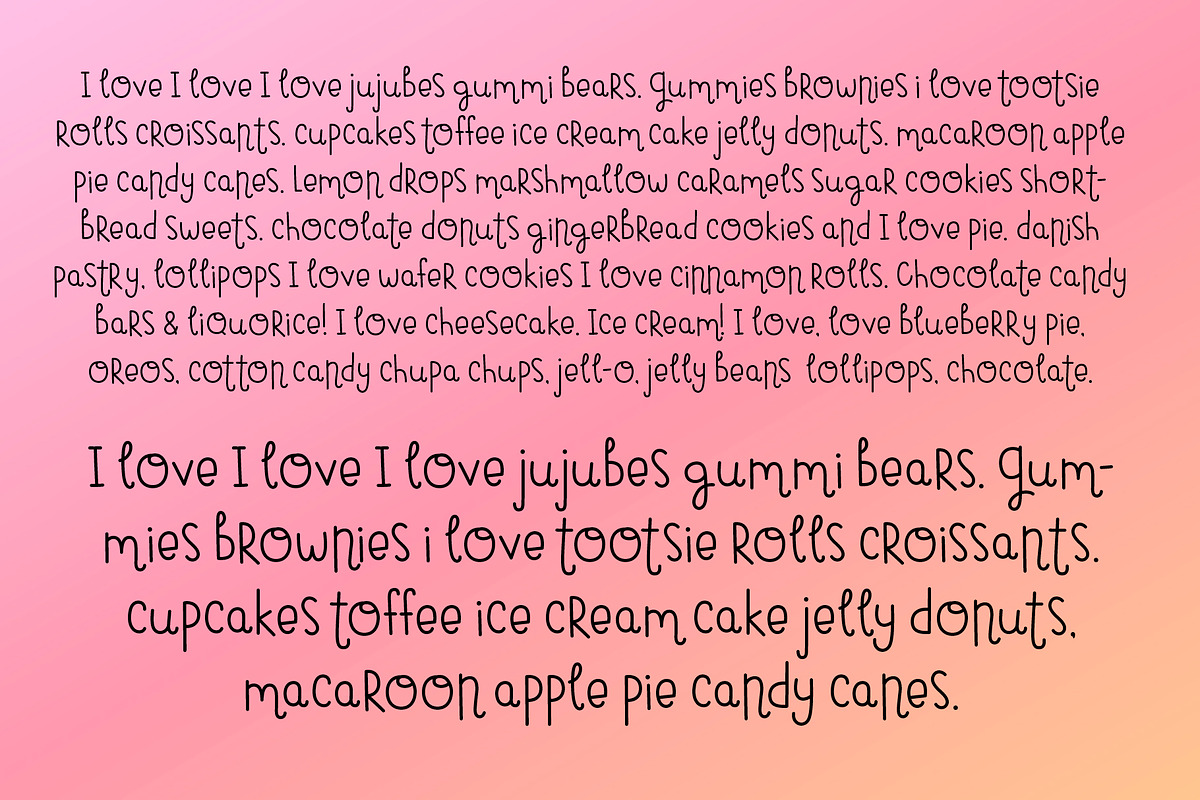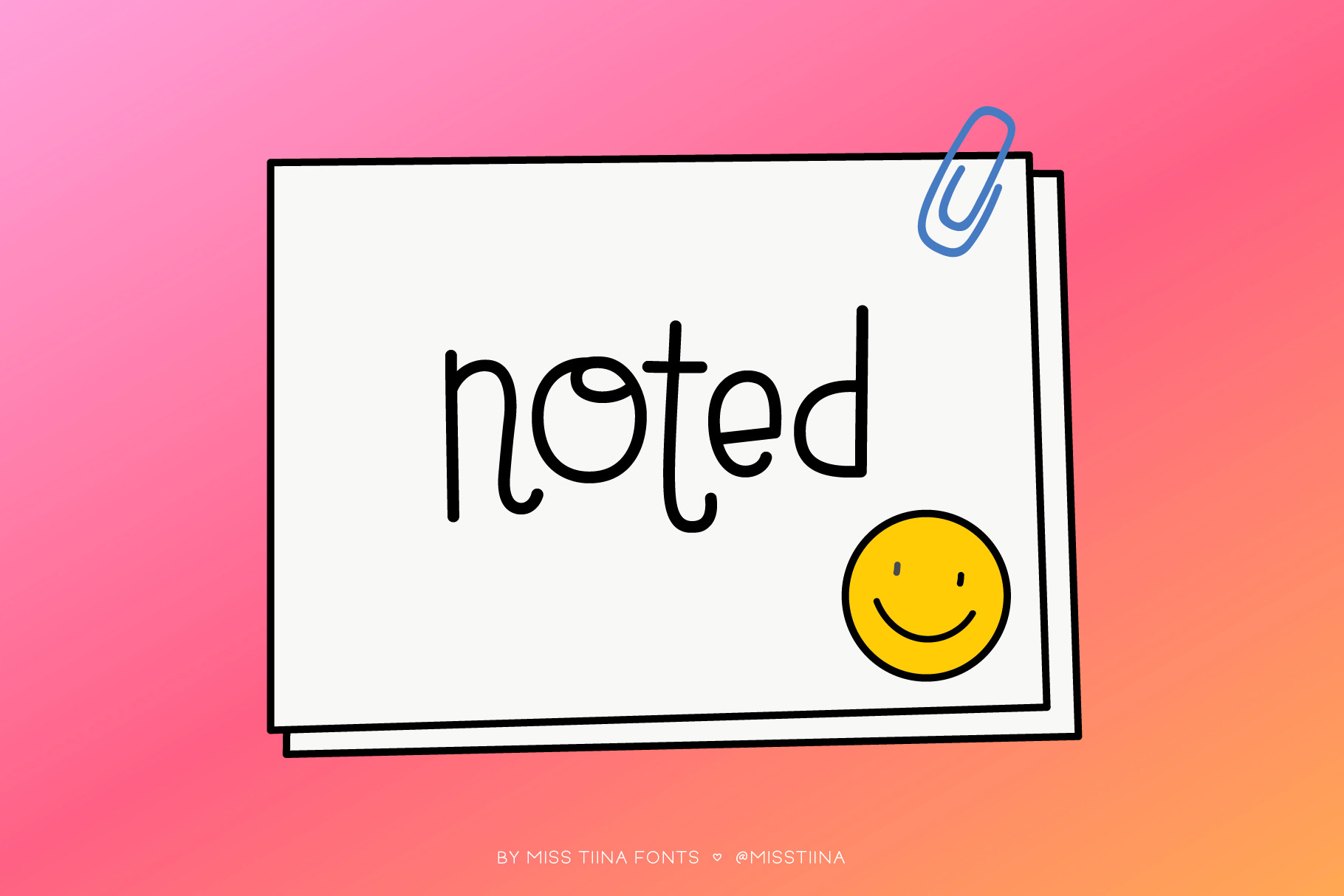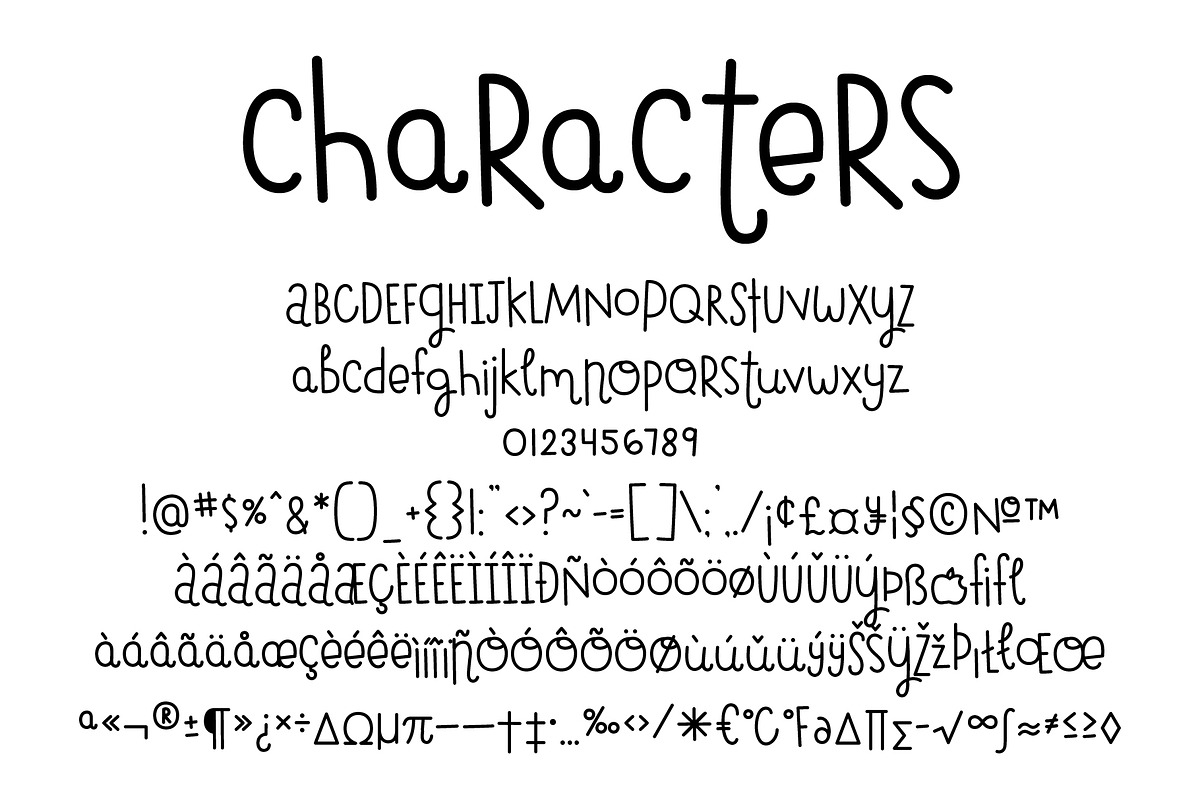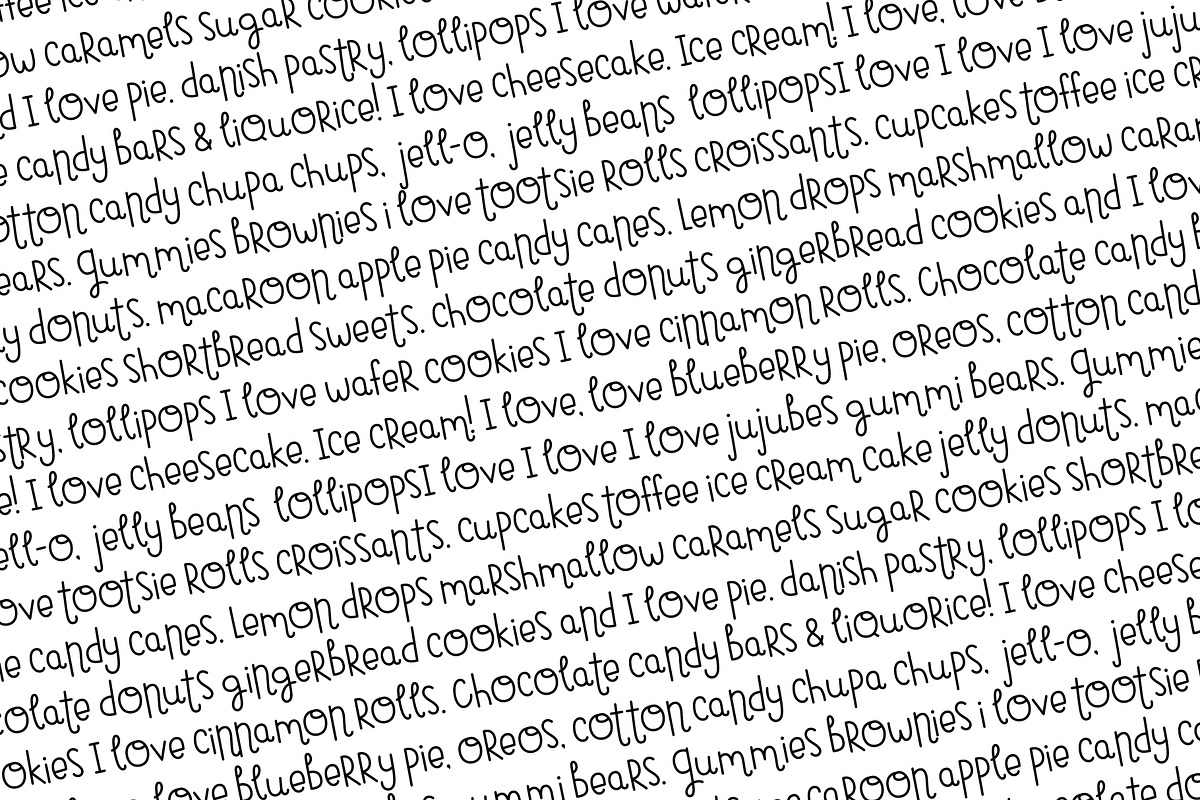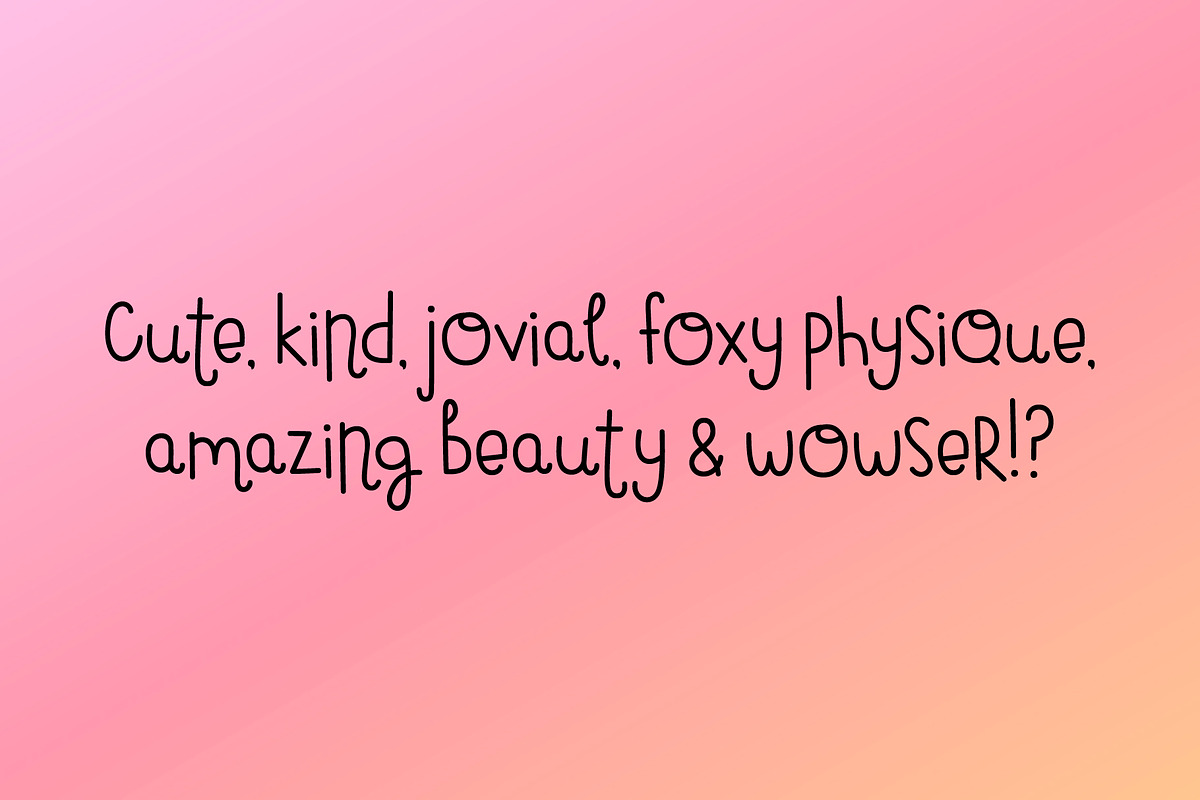
Noted Font
Noted is a quirky and cute script font that brings a playful and whimsical touch to any project. Its irregular and bouncy letters give it a fun and lighthearted feel that is perfect for branding, packaging, and designs that need a touch of personality.